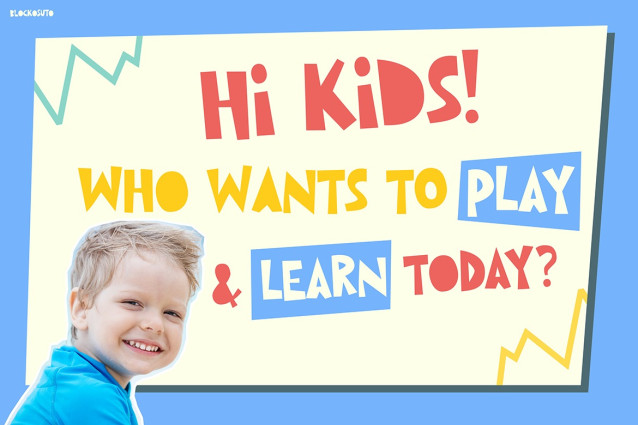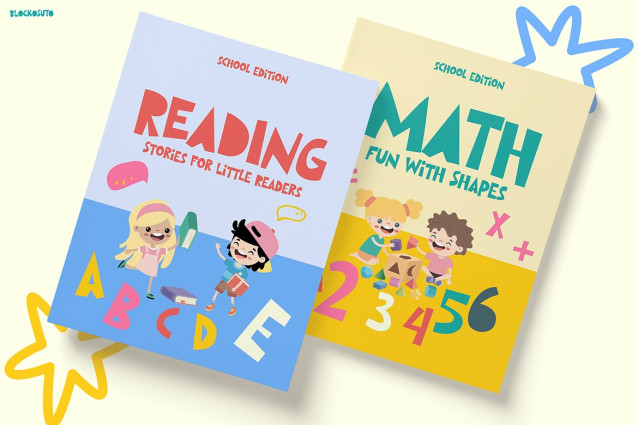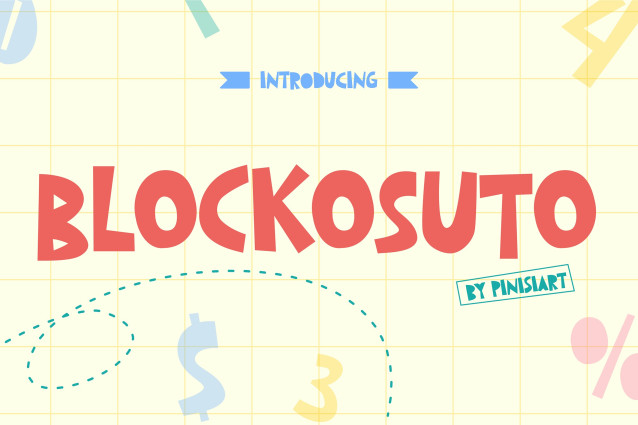
Blockosuto Display Font
Blockosuto Display Font is a one-of-a-kind typeface designed to bring joy, playfulness, and creativity to every project. What makes this font truly unique is its bold yet friendly aesthetic—crafted with geometric shapes, soft curves, and playful edges that instantly capture a child’s sense of wonder. Each letter feels like a building block, making it not just a font, but a design element that sparks imagination. From bright posters to interactive learning materials, Blockosuto shines with a balance of readability and cheerful personality. It’s the perfect blend of fun and function, ensuring your text stands out while keeping a kid-friendly vibe.